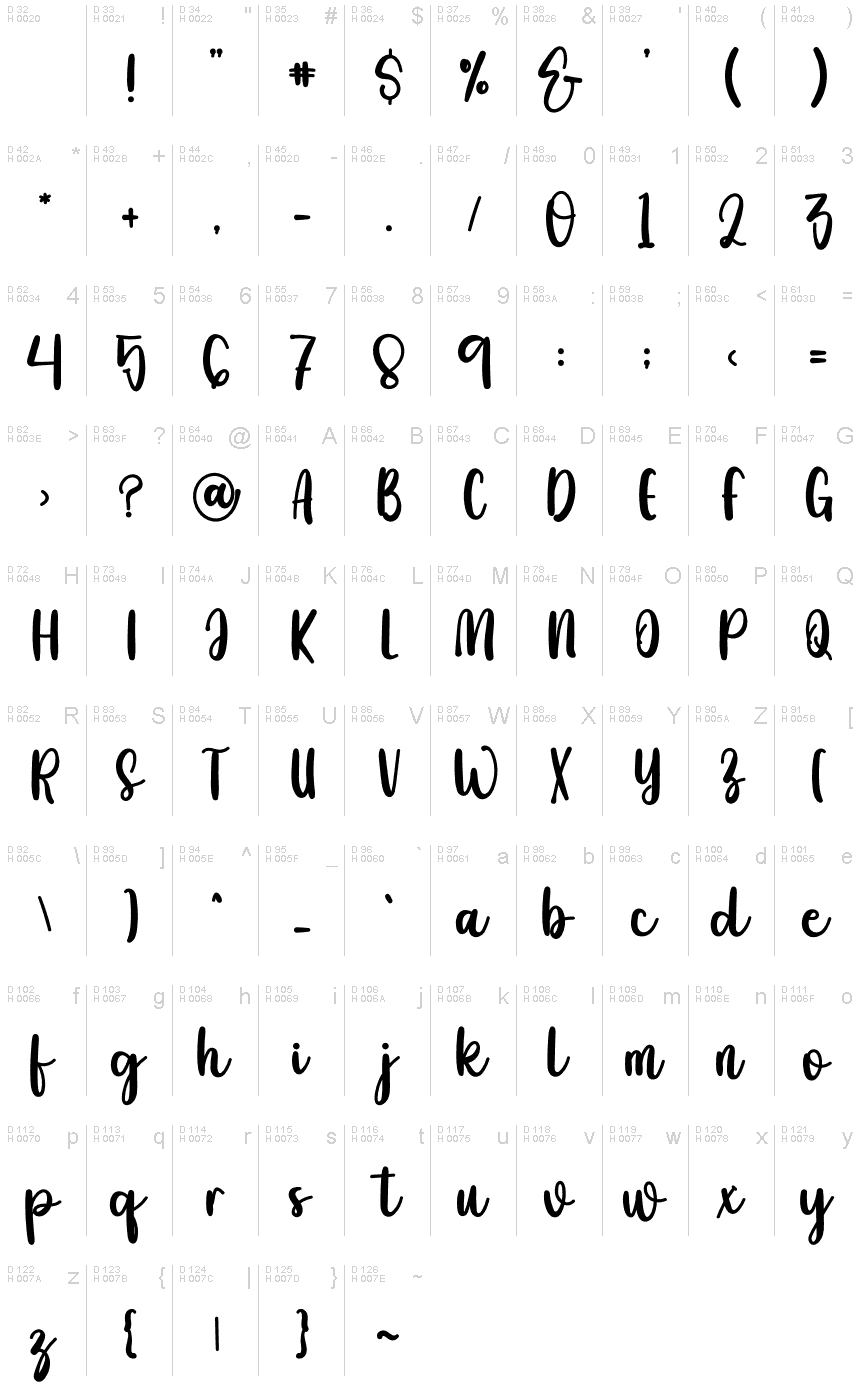
White Milk
White Milk by FreshtypeINK is an amazing handwritten font with a bold weight. Its unique style makes it perfect for projects that require an eye-catching, creative touch - from beautiful wedding invitations to creative logos and branding designs.